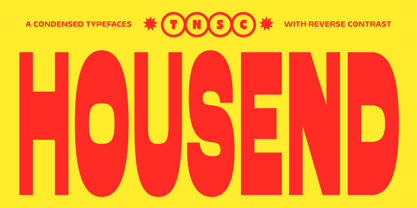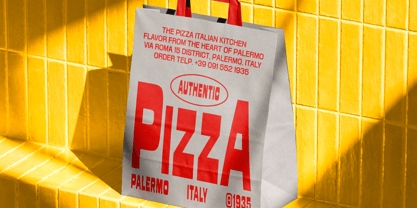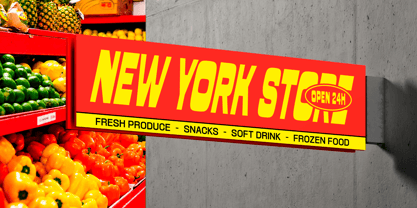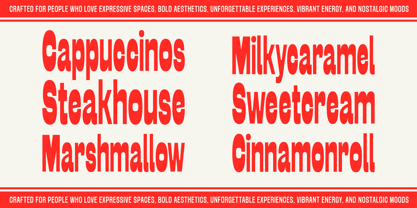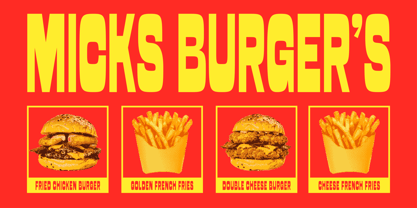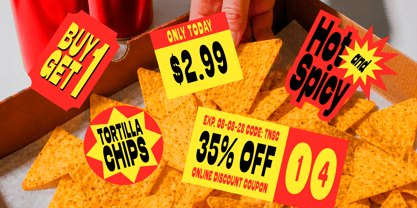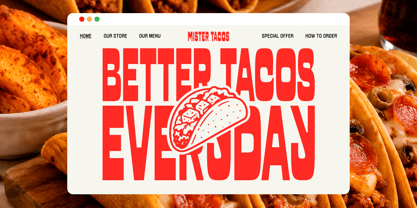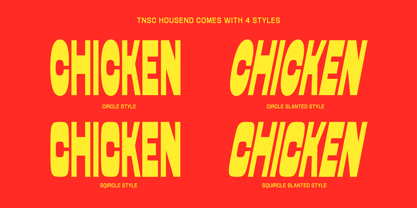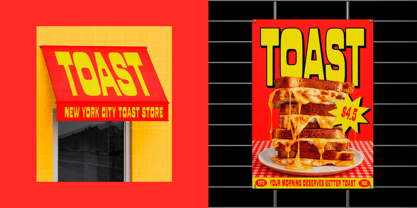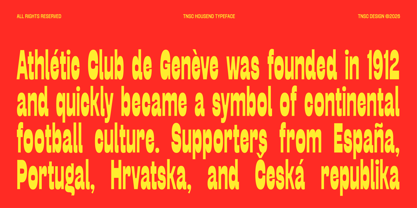
Housend is a condensed reverse-contrast display typeface with a bold, quirky, and playful personality. Designed with tall narrow shapes and expressive proportions, this typeface brings a strong visual impact to any design that needs to feel loud, fun, and full of character.
Inspired by food posters, street market signage, retro packaging, burger shops, snack labels, and bold commercial graphics, perfect for creating eye-catching headlines and memorable brand visuals. Its unique reverse contrast gives every word a tasty, energetic, and slightly unexpected look.
Features
• 4 Styles (Circle, Circle Slanted, Squircle, Squircle Slanted)
• Lowercase & Uppercase
• Diacritics
• Alternates
• Numerals (3 sets)
• Punctuation & Symbols
• Currency, Mathematics & Arrows